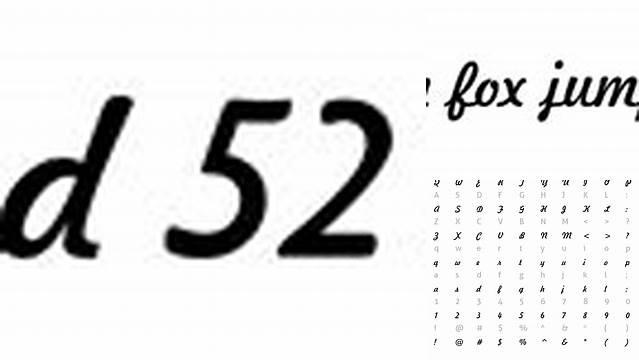
Freehand 521 Std Regular: Font Guide & Uses
Hey guys! Ever wondered about the Freehand 521 Std Regular font? It's more than just letters and curves; it's a whole vibe. Let's break it down, explore its uses, and see why it might just be the perfect font for your next project. We'll cover everything from its basic characteristics to advanced applications, making sure you get a solid understanding of what makes this font tick. So, grab your coffee, get comfy, and let's dive in!
1. Understanding the Basics of Freehand 521 Std Regular
Okay, so what exactly is Freehand 521 Std Regular? Simply put, it's a typeface. But not just any typeface. It's got a distinctive, hand-drawn feel, which makes it super versatile for projects that need a personal touch. Think logos, posters, or even just adding some flair to your website. The 'Std Regular' part just means it's the standard, or normal, weight of the font. No bold, no italics, just the good ol' regular version. Understanding its core characteristics – the slightly uneven lines, the quirky letterforms – is key to using it effectively.
It is a beautiful font to use, if you want to create the hand-drawn feel. It is perfect for logos and posters. To make it more attractive, you can combine with different types of fonts. By understand the basic, you can maximize your usage of Freehand 521 Std Regular. In designing, understanding the basic is the most important things. Because, if you have a good basic, you can make a great design. So, don't underestimate the basic, guys!
2. The History and Origin of Freehand Fonts
Where did fonts like Freehand 521 Std Regular come from, anyway? Well, the whole idea of a “freehand” font is relatively modern. It's a reaction against the super-clean, geometric fonts that dominated design for a long time. Designers wanted something more organic, something that felt human. So, they started creating fonts that looked like they were drawn by hand. This led to a whole wave of freehand typefaces, each with its own unique flavor. Freehand 521 Std Regular fits right into this tradition, offering a balance of readability and that appealing, hand-crafted look.
The history of Freehand 521 Std Regular fonts is very interesting to know, guys. You can learn so much from the history. So, don't hesitate to learn about the history of this amazing font. Because, the history is the most important things. You can learn a lot from it. It is a modern fonts, but you can still learn a lot from it. Don't underestimate the history, guys!
3. Key Features That Define Freehand 521 Std Regular
What makes Freehand 521 Std Regular stand out from the crowd? It's all in the details! Pay attention to the slightly irregular baseline, the varying stroke weights, and the subtle imperfections in each character. These aren't flaws; they're features! They give the font its personality and make it feel less sterile than a typical computer font. The spacing between letters (kerning) is also carefully considered to maintain readability while preserving that hand-drawn aesthetic. Knowing these features will help you appreciate and utilize the font to its full potential.
Freehand 521 Std Regular is unique because of the hand-drawn aesthetic. It is very different from the other fonts. The personality from the fonts is very different. It's not just a font, it's a statement. You can create a very good design, because the font is so unique. So, don't hesitate to use it, guys!
4. Ideal Use Cases for Freehand 521 Std Regular
So, where does Freehand 521 Std Regular really shine? Think branding for creative businesses, invitations, quirky website headers, and anything that needs a touch of personality. It's perfect for projects where you want to convey a sense of authenticity and approachability. However, it's not ideal for long blocks of text, as its distinctive style can become tiring on the eyes. Use it sparingly and strategically for maximum impact. For example, using the font in your web header is a great idea.
Do you have any creative business? This font is perfect for you. You can attract more people by using this font. It can create a sense of authenticity and approachability. More people will come and visit your business. So, don't underestimate the power of the fonts. The font can do magic, guys.
5. Pairing Freehand 521 Std Regular with Other Fonts
One of the keys to great typography is pairing fonts effectively. Freehand 521 Std Regular works well with simple, clean sans-serif fonts like Helvetica or Arial. The contrast between the hand-drawn style and the clean lines creates a balanced and visually appealing effect. You could also pair it with a classic serif font for a more traditional, yet still interesting, look. Experiment and see what works best for your specific project.
If you want to make it more interesting, you can combine the font with a simple font, such as Arial or Helvetica. That would be a perfect combination for your design. You can attract more people, guys! Experiment with the fonts, you will find the perfect one for your design.
6. Freehand 521 Std Regular in Logo Design
Using Freehand 521 Std Regular in logo design can give your brand a unique and memorable identity. Its hand-drawn feel can convey a sense of creativity, authenticity, and approachability. It’s particularly well-suited for businesses in the arts, crafts, or food industries. However, make sure it aligns with your brand's overall message and target audience. A logo is the first thing people will see about your brand. So, using Freehand 521 Std Regular is a very great idea.
7. Freehand 521 Std Regular for Web Design
In web design, Freehand 521 Std Regular can add a touch of personality to your website. Use it for headings, subheadings, or short bursts of text to draw attention and create a visually interesting experience. However, avoid using it for large paragraphs of text, as it can be difficult to read on screen. So, use the font wisely and strategically, guys!
8. Using Freehand 521 Std Regular in Print Materials
Freehand 521 Std Regular is a fantastic choice for print materials like posters, flyers, and invitations. Its distinctive style can make your designs stand out and grab attention. Experiment with different colors and layouts to create visually appealing and memorable print pieces. Make your poster very appealing, guys!
9. Alternatives to Freehand 521 Std Regular
If Freehand 521 Std Regular isn't quite right for your project, there are plenty of alternatives to explore. Look for other hand-drawn fonts with similar characteristics, or consider a different style altogether. The key is to find a font that aligns with your design goals and effectively communicates your message. You can find it online or from your friend, guys!
10. The Emotional Impact of Freehand Fonts
Fonts have the power to evoke emotions and create a specific mood. Freehand 521 Std Regular, with its hand-drawn feel, can convey a sense of warmth, authenticity, and approachability. Consider the emotional impact of your font choice and how it aligns with your overall message. You can evoke more customer by using the right fonts.
11. Legibility Considerations for Freehand 521 Std Regular
While Freehand 521 Std Regular is a stylish font, legibility is still important. Make sure your text is easy to read, especially in smaller sizes. Avoid using it for long blocks of text, and pay attention to the spacing between letters and lines. If it's hard to read, nobody will understand your message, guys!
12. Technical Specifications of Freehand 521 Std Regular
Understanding the technical specifications of Freehand 521 Std Regular can help you use it more effectively. This includes details like the font format (e.g., TTF, OTF), the available weights and styles, and any licensing restrictions. You can find all of these information by searching it on google. You can read the font documentation as well, guys!
13. Licensing and Usage Rights for Freehand 521 Std Regular
Before using Freehand 521 Std Regular in your projects, it's important to understand the licensing and usage rights. Some fonts are free to use, while others require a commercial license. Make sure you comply with the terms of the license to avoid any legal issues. You don't want to get sued, right? So, make sure you understand the license, guys!
14. Freehand 521 Std Regular and Branding Consistency
Using Freehand 521 Std Regular consistently across your branding materials can help create a cohesive and recognizable brand identity. Choose a font that aligns with your brand's values and use it consistently in your logo, website, and marketing materials. You want your brand to be recognizable, right? So, be consistent, guys!
15. The Future of Freehand Fonts in Design
Freehand fonts are constantly evolving, with new styles and variations emerging all the time. As design trends continue to shift, expect to see even more innovative and creative uses of freehand fonts in the future. The future of design is bright, guys!
16. Freehand 521 Std Regular in Editorial Design
Freehand 521 Std Regular can add a unique touch to editorial design, particularly in magazines or publications that aim for a creative or artistic aesthetic. Use it for headlines, pull quotes, or short text elements to add visual interest. Make your editorial design interesting, guys!
17. Creating a Hand-Drawn Effect with Freehand 521 Std Regular
One of the best things about Freehand 521 Std Regular is its ability to mimic the look and feel of hand-drawn lettering. Use it to create designs that have a personal, authentic, and approachable quality. Make your design personal, guys!
18. Combining Freehand 521 Std Regular with Illustrations
Freehand 521 Std Regular pairs beautifully with illustrations, especially those with a hand-drawn or whimsical style. The combination can create a cohesive and visually appealing design that captures attention and conveys a sense of creativity. This combination is very eye-catching, guys!
19. Freehand 521 Std Regular for Social Media Graphics
Use Freehand 521 Std Regular in your social media graphics to add a touch of personality and stand out from the crowd. It's perfect for creating eye-catching headlines, quotes, or promotional messages. Social media is important, guys!
20. Designing Invitations with Freehand 521 Std Regular
Freehand 521 Std Regular is an excellent choice for designing invitations, especially for events that have a casual, creative, or handmade feel. It can add a personal touch and make your invitations more memorable. Make your invitations memorable, guys!
21. The Psychology of Freehand Typefaces
Freehand typefaces can evoke different psychological responses than more traditional fonts. They often feel more approachable, friendly, and authentic, which can be beneficial for brands that want to create a personal connection with their audience. Make a personal connection with your customer, guys!
22. Freehand 521 Std Regular and Accessibility Considerations
When using Freehand 521 Std Regular, it's important to consider accessibility. Ensure that your text is legible for people with visual impairments by using sufficient contrast and avoiding overly small font sizes. Accessibility is very important, guys!
23. Exploring the Different Weights of Freehand Fonts
While Freehand 521 Std Regular is the standard weight, some freehand fonts may come in different weights, such as bold or light. Experiment with different weights to create visual hierarchy and add emphasis to your designs. Experiment with the weights, guys!
24. Using Freehand 521 Std Regular for Packaging Design
Freehand 521 Std Regular can be a great choice for packaging design, particularly for products that have a handmade, artisanal, or organic quality. It can help convey a sense of authenticity and craftsmanship. Make your packaging authentic, guys!
25. Freehand 521 Std Regular in Motion Graphics
In motion graphics, Freehand 521 Std Regular can add a playful and dynamic touch. Use it for titles, captions, or animated text elements to create visually engaging and memorable animations. Make your animation more engaging, guys!
26. Combining Freehand 521 Std Regular with Photography
Freehand 521 Std Regular can be effectively combined with photography to create visually compelling designs. Use it to add headlines, captions, or annotations to your photos and create a sense of storytelling. Tell a story with your design, guys!
27. The Importance of Kerning with Freehand 521 Std Regular
Kerning, the spacing between individual letters, is especially important with Freehand 521 Std Regular due to its irregular letterforms. Adjust the kerning to ensure that your text is legible and visually appealing. Pay attention to your kerning, guys!
28. Freehand 521 Std Regular and Color Theory
The colors you use with Freehand 521 Std Regular can have a significant impact on the overall look and feel of your designs. Consider the principles of color theory and choose colors that complement the font and convey the desired message. Color theory is very important, guys!
29. Freehand 521 Std Regular for T-Shirt Design
Freehand 521 Std Regular can be a fun and creative choice for t-shirt design, especially for designs that have a hand-drawn or artistic vibe. Use it to create unique and eye-catching t-shirt graphics. Make your t-shirt unique, guys!